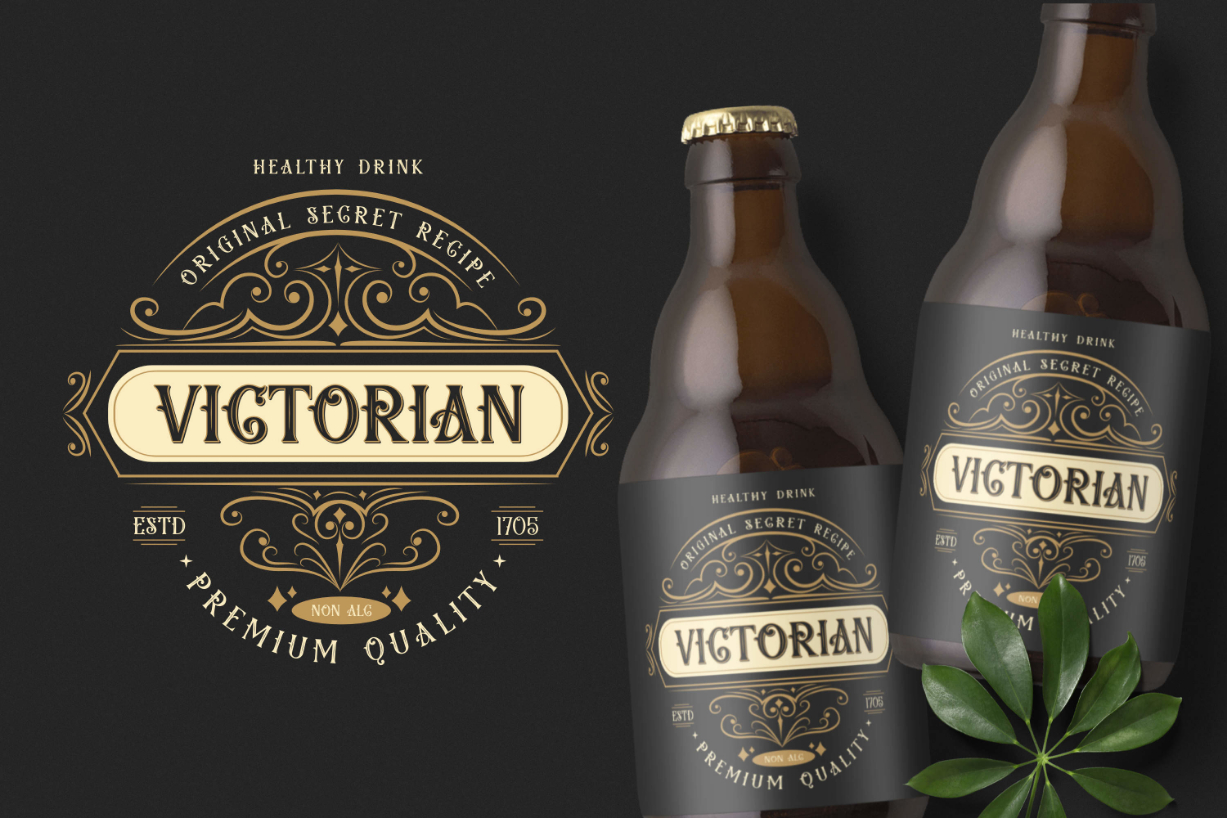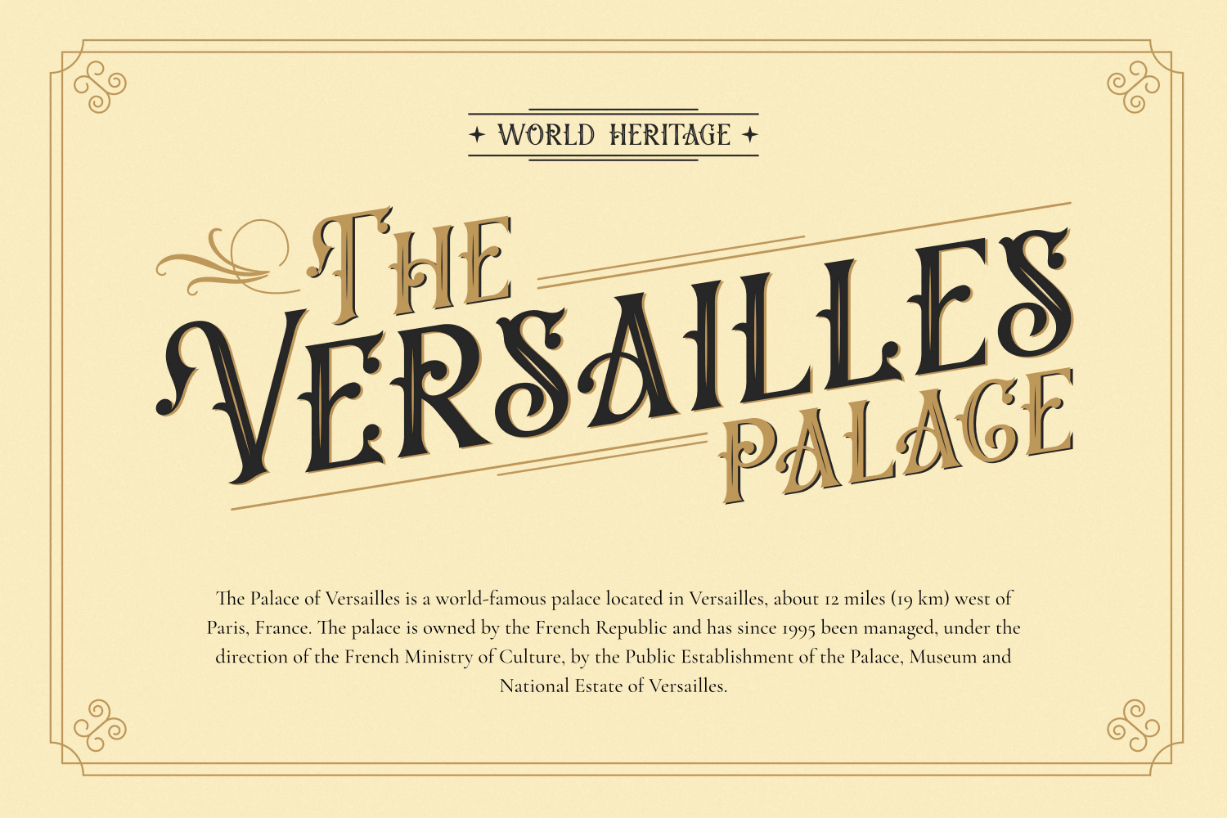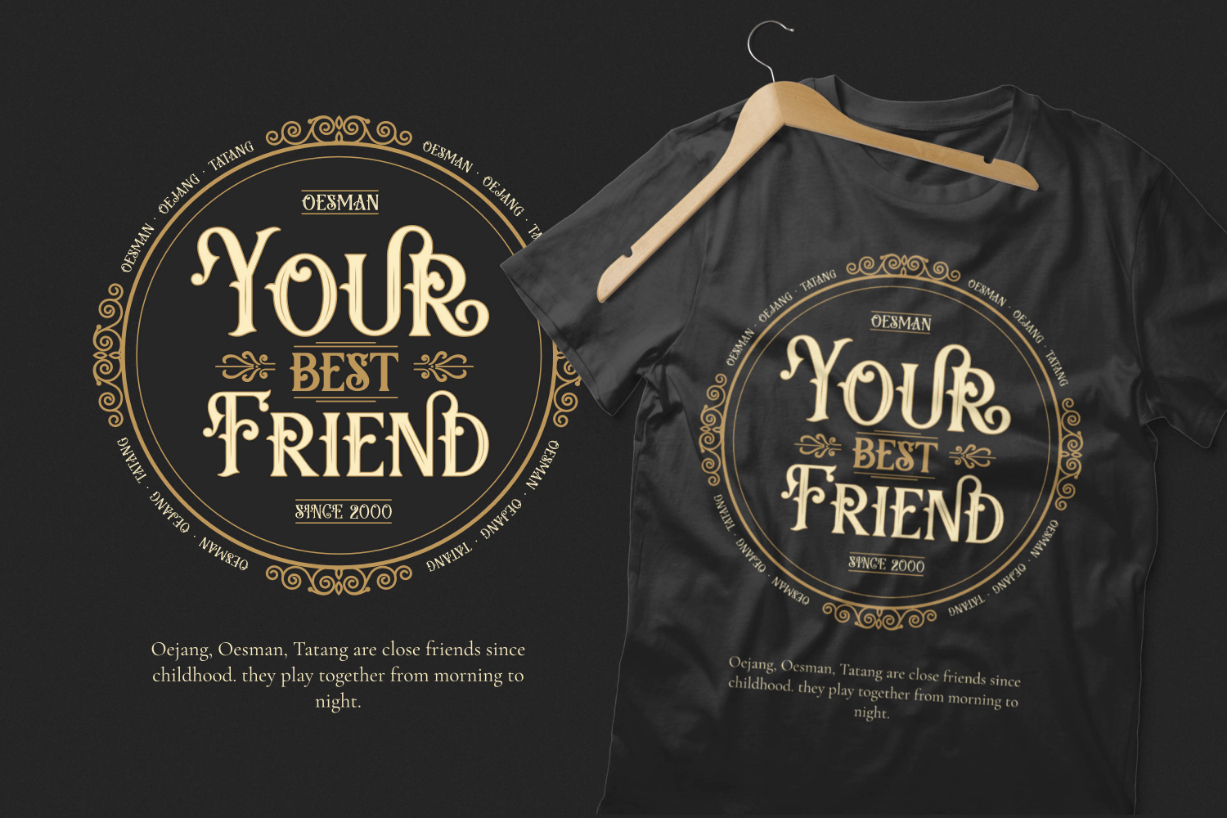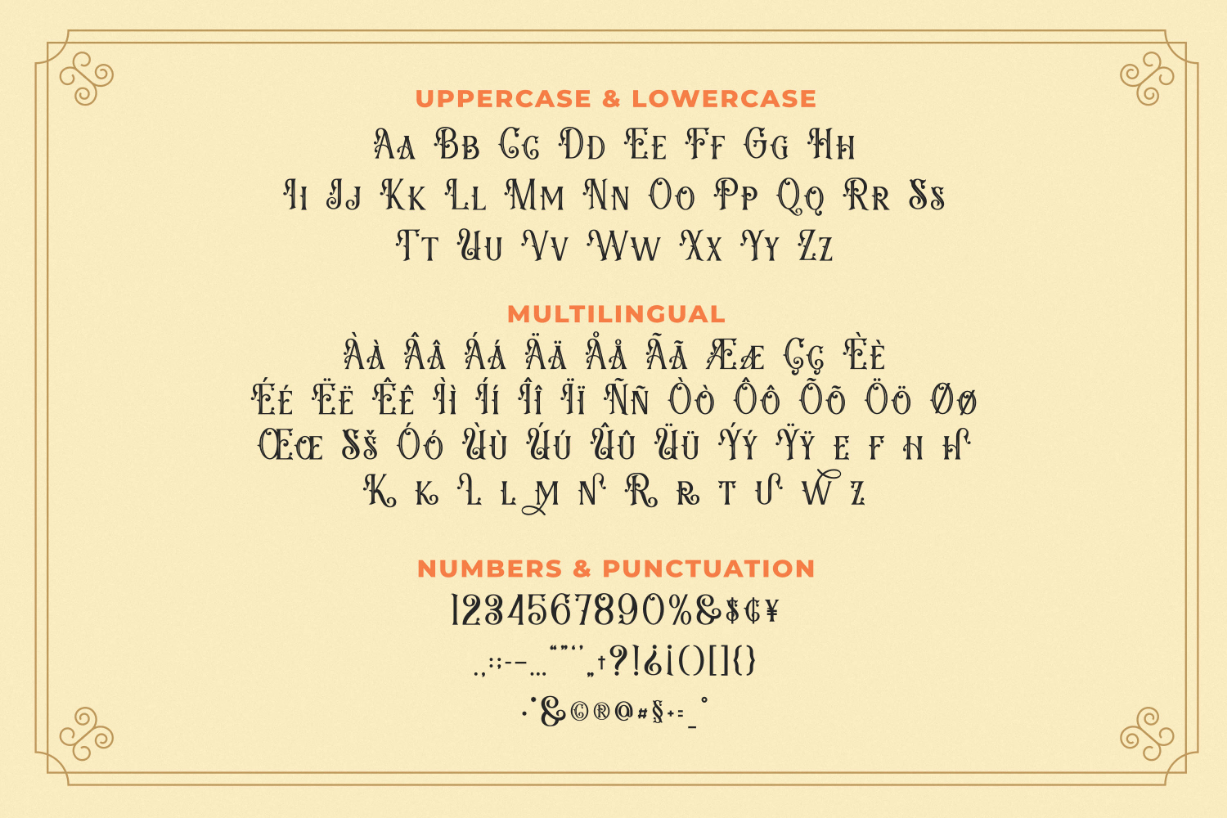
About Usman Font
Usman is a gothic styled and distinct blackletter font. It is imposing and features uniquely shaped letters, and as a result, it will easily match a wide range of creations that require a distinct touch.